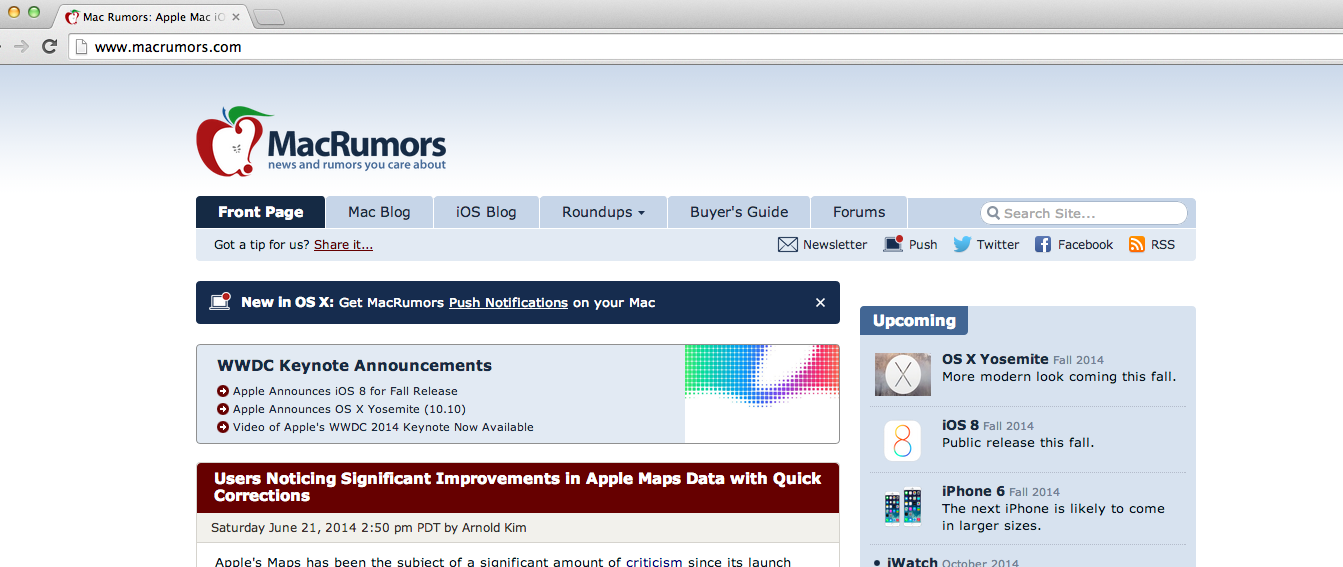
I know how much people hate to compare OS X to Windows, it is just a different OS and people should keep that in mind that they do have a different workflow and so on.
What stresses me the most from switching to a Mac is the blurry/fuzzy font. First I thought it's just my machine, then I tested it in an Apple store and it's not only my MacBook Air.
Please take a look at the following two screenshot, both made on my MacBook Air. One with OS X (Mavericks) and the other one running Parallels Desktop with Windows 8.
OS X:
Windows:
I think you can see the biggest difference where the "Front Page" is marked in the navigation of the website. I have tried all sorts of tweaks to get a better looking font (tried all the font smoothing values from 1-4 in the terminal with reboots), because I can't believe that this is how good designers work with. Are they all using Windows now?
Do you have any ideas how to get a less super fat looking font with OS X?
It doesn't look like a font-smoothing issue to me (anti-aliasing, sub-pixel or not). It looks like completely different typefaces, or different weights.
Another place where the difference is very noticeable is the word "Yosemite" under the "Upcoming" heading on the right. I mention this one because unlike the "Front Page", which is rendered white on dark, the "Yosemite" is rendered black on light. Also, the problem is most noticeable only on the extra-bold weight. Looking at the normal weights, those seem more like font-smoothing differences between the two OSes.
I should point out that even if the fonts on both OSes have the same name, this is no guarantee that the actual outlines (or bitmaps) are identical.
As a way to help others replicate what you're seeing, please post exactly what font-smoothing parameters were active when your screenshots were made.
Also, please identify exactly which browsers are appearing in each screenshot (name and exact version), and exactly which OS version.
Font-smoothing parameters: In the preferences the checkbox LCD Font-Smoothing is enabled (doesn't make any big difference if enabled or disbaled!).
The browser used for the screenshot is Chrome version 35. But there is no difference if I use Safari version 7.0.4.
The OS X version is: 10.9.3.
Can you post a sreenshot of the macrumors startpage on your mac?
What stresses me the most from switching to a Mac is the blurry/fuzzy font. First I thought it's just my machine, then I tested it in an Apple store and it's not only my MacBook Air.
What you are seeing is perfectly normal and a very common complaint of new OS X users coming from Windows. They do appear fuzzier on OS X because of the different way OS X renders fonts from Windows.
The short version of this is OS X purportedly renders the fonts true to how they should look, even at the expense of a little blur, where Windows makes them crisper even perhaps at the expense of the font maybe not looking exactly like it should.
Here is an article that talks a little about this. In the article are some links to other pages on the same topic. If you search for "os x vs. windows font rendering" you will find much heated debate over this. 🙂
What you are seeing is perfectly normal and a very common complaint of new OS X users coming from Windows. They do appear fuzzier on OS X because of the different way OS X renders fonts from Windows.
That's one aspect I'm not all that jazzed up about with OS X. I switch back and forth between Windows and OS X and how OS X renders fonts is something that I wished it did better.
That's the point: what is "better"? As pointed out in Weaselboy's link, OS X sticks truer to the WYSIWYG approach than Windows does. A lot of people would define that as "better".
What you get where? On a piece of paper? If that's the case: Why paper? If somebody never prints anything, why should it look like that?
And what you are saying does not fit for the retina display users, because they see it more like windows! What about that?
That's the point: what is "better"? As pointed out in Weaselboy's link, OS X sticks truer to the WYSIWYG approach than Windows does. A lot of people would define that as "better".
What's better text that isn't rendered fuzzy. I prefer crispness. YMMV but that's my take on it.
What you get where? On a piece of paper? If that's the case: Why paper? If somebody never prints anything, why should it look like that?
I am sure that when I switch to a retina macbook this requirement will no longer be, but for the time being I am not satisfied with the OSX approach.
Currently I have used this command:
defaults -currentHost write -g AppleFontSmoothing -int [x]
where x=4 (1-4 allowed values), no brackets needed and the result to font rendering is closer to my liking but not 100%.
Any suggestions are very welcome.